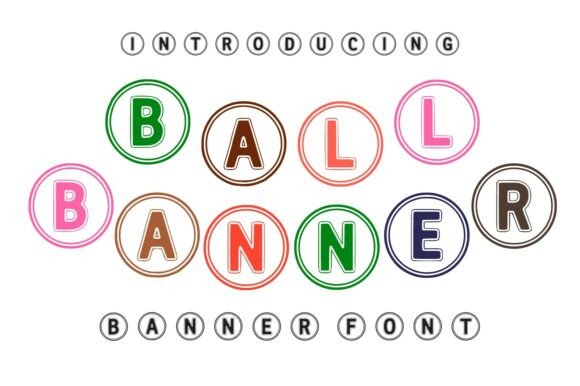
Ball Banner
Finding the right design elements can be challenging, but Ball Banner offers an exceptional collection that elevates your work instantly.
Whether you are creating POD (Print on Demand) products, wedding invitations, or social media graphics, Ball Banner is an ideal fit.